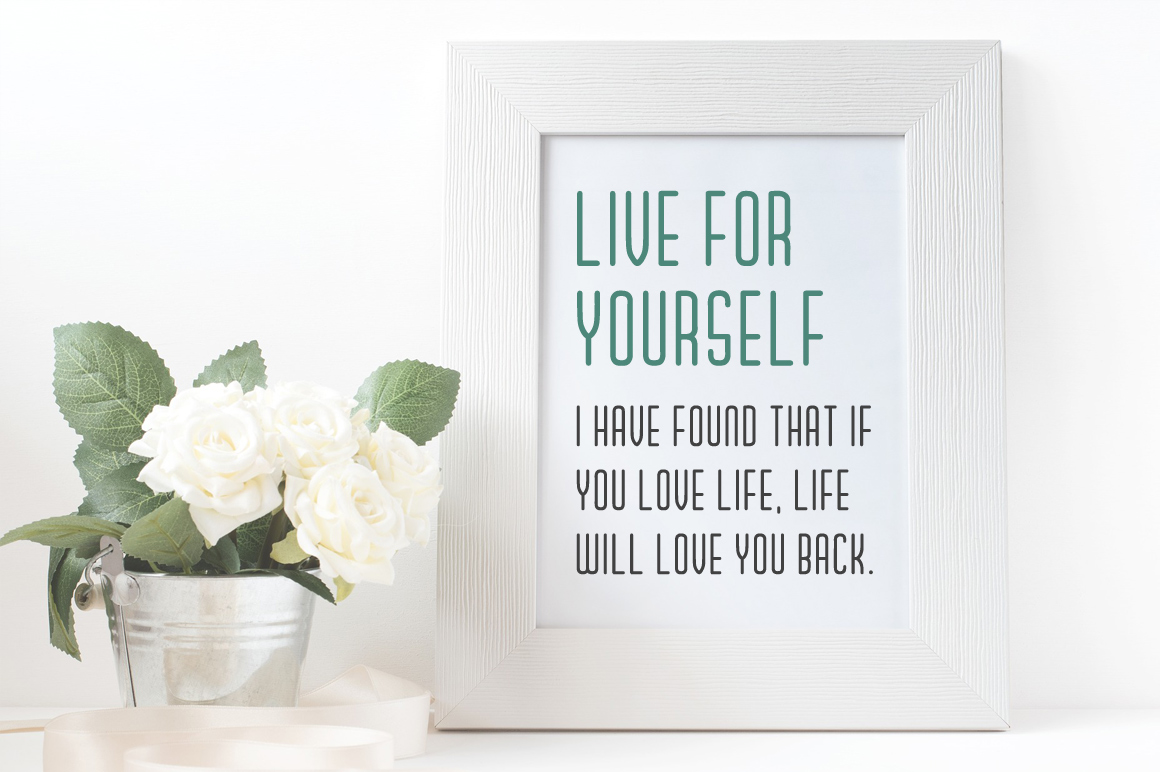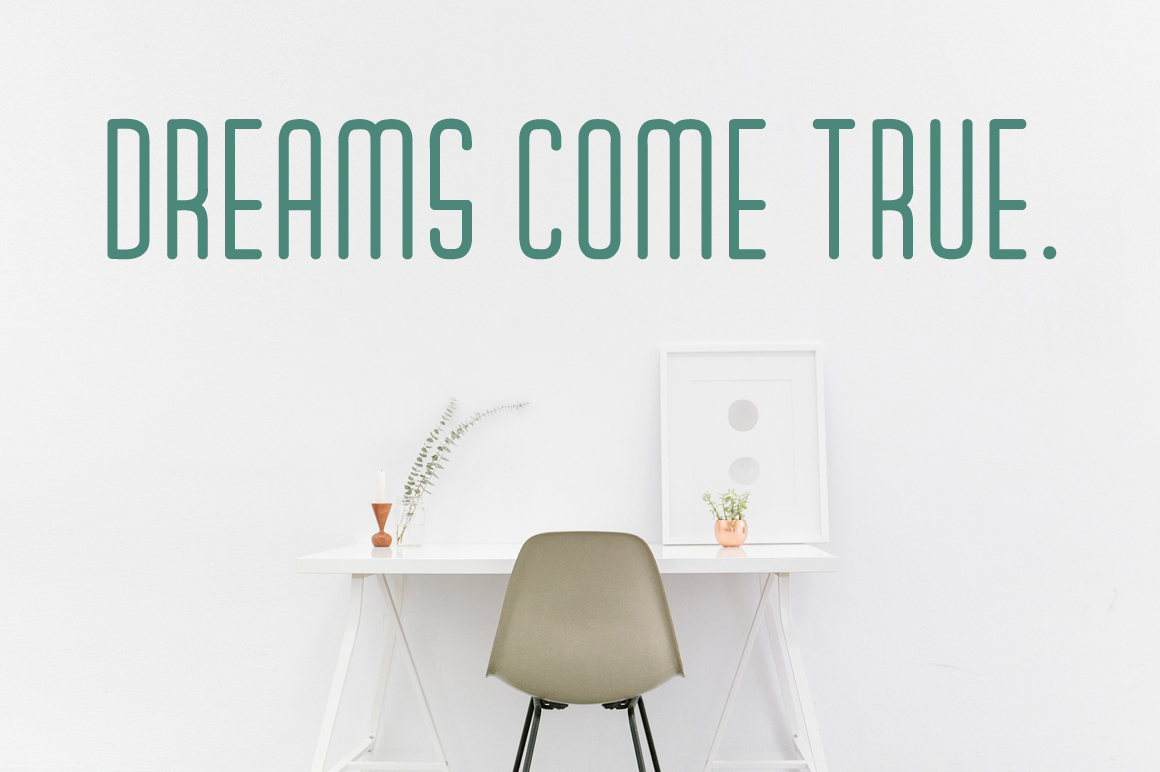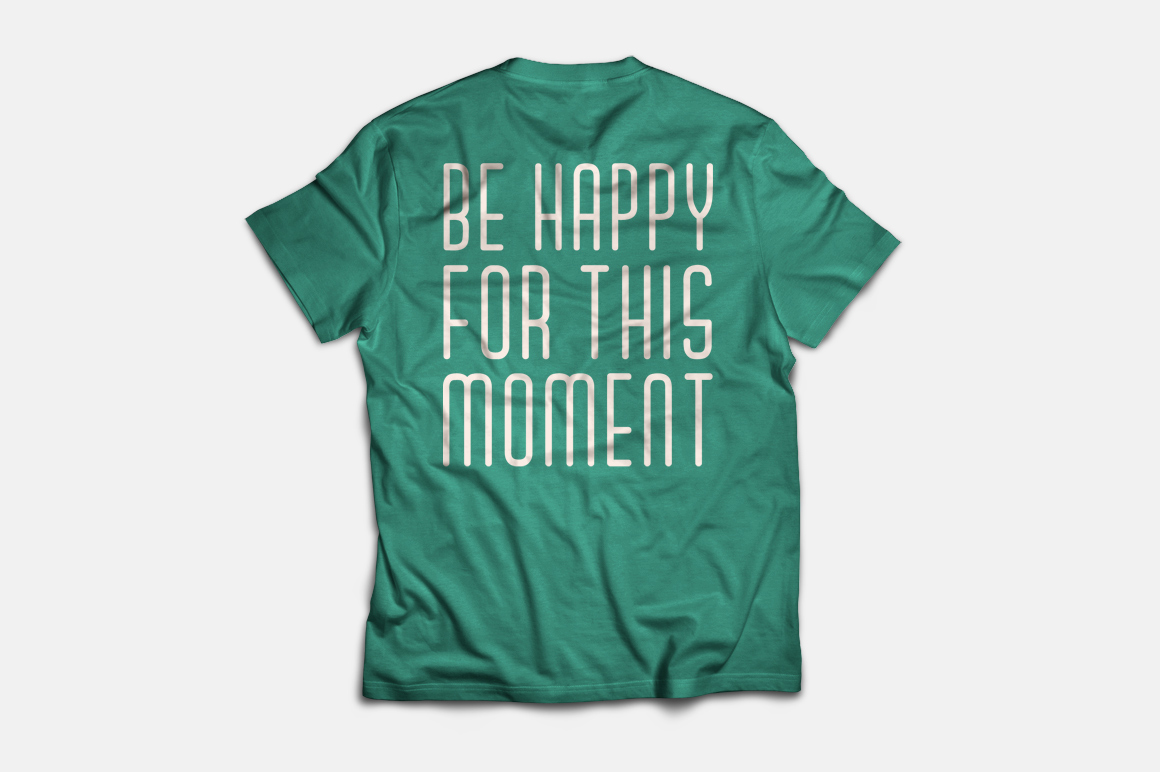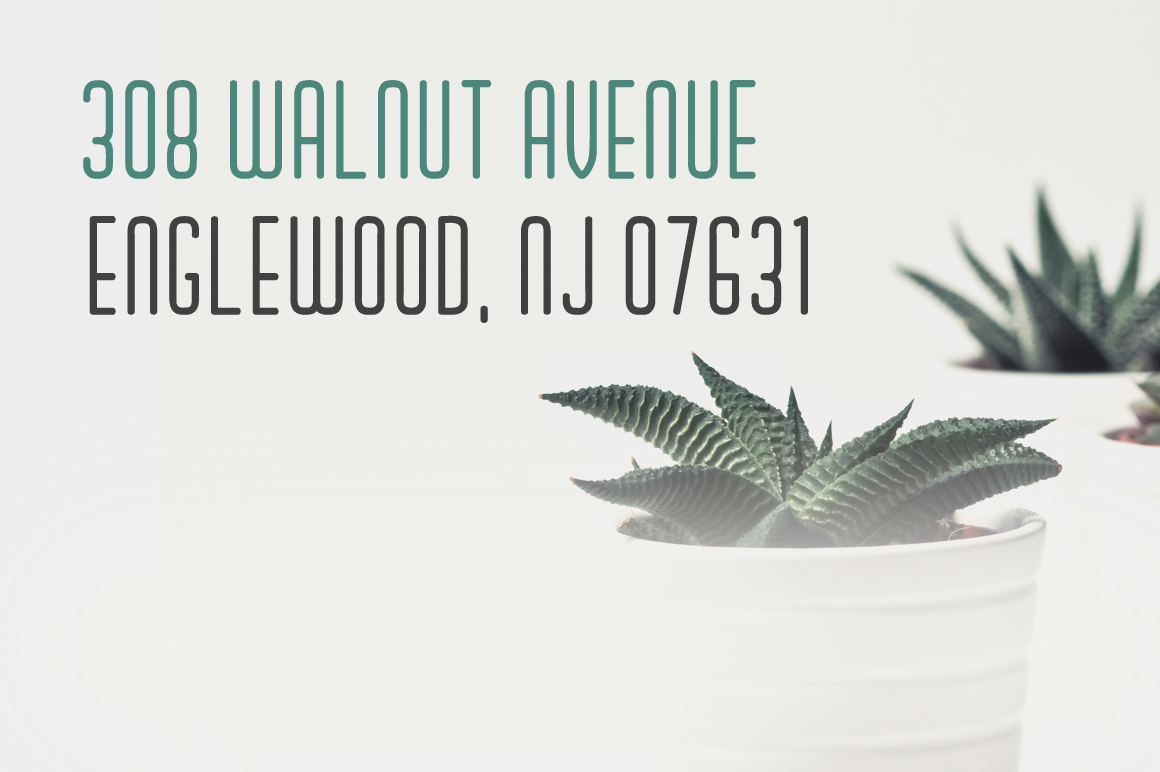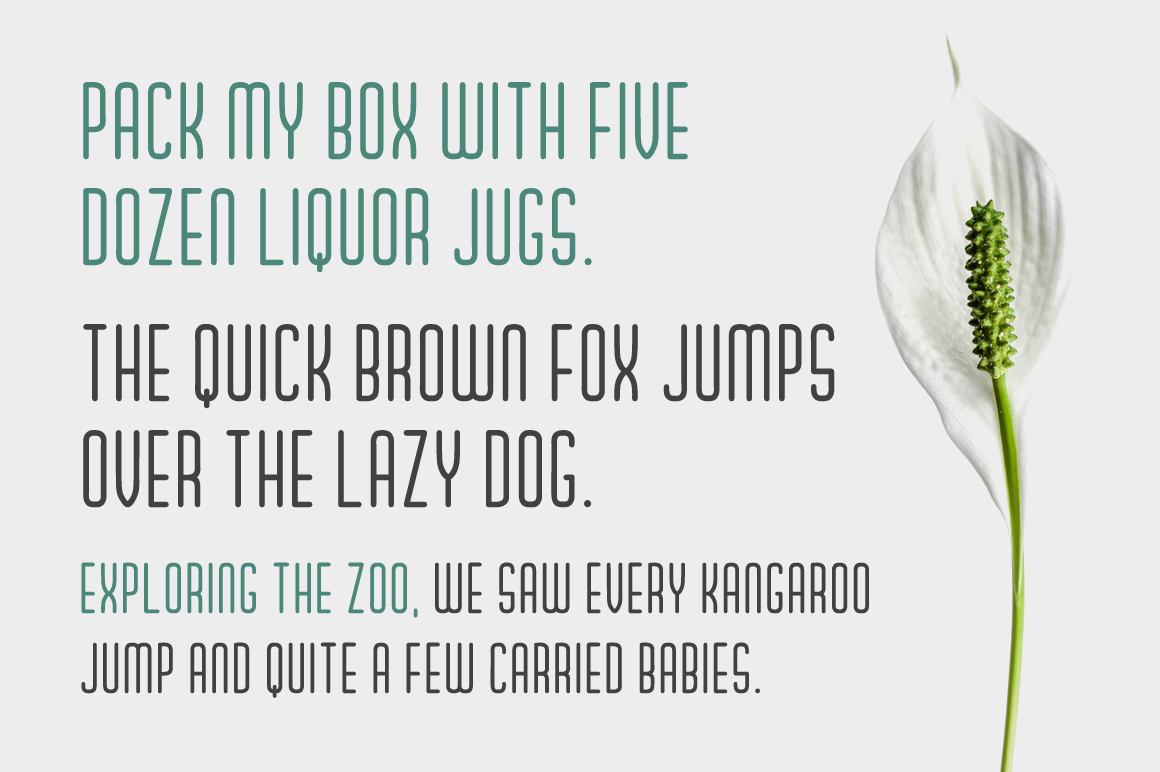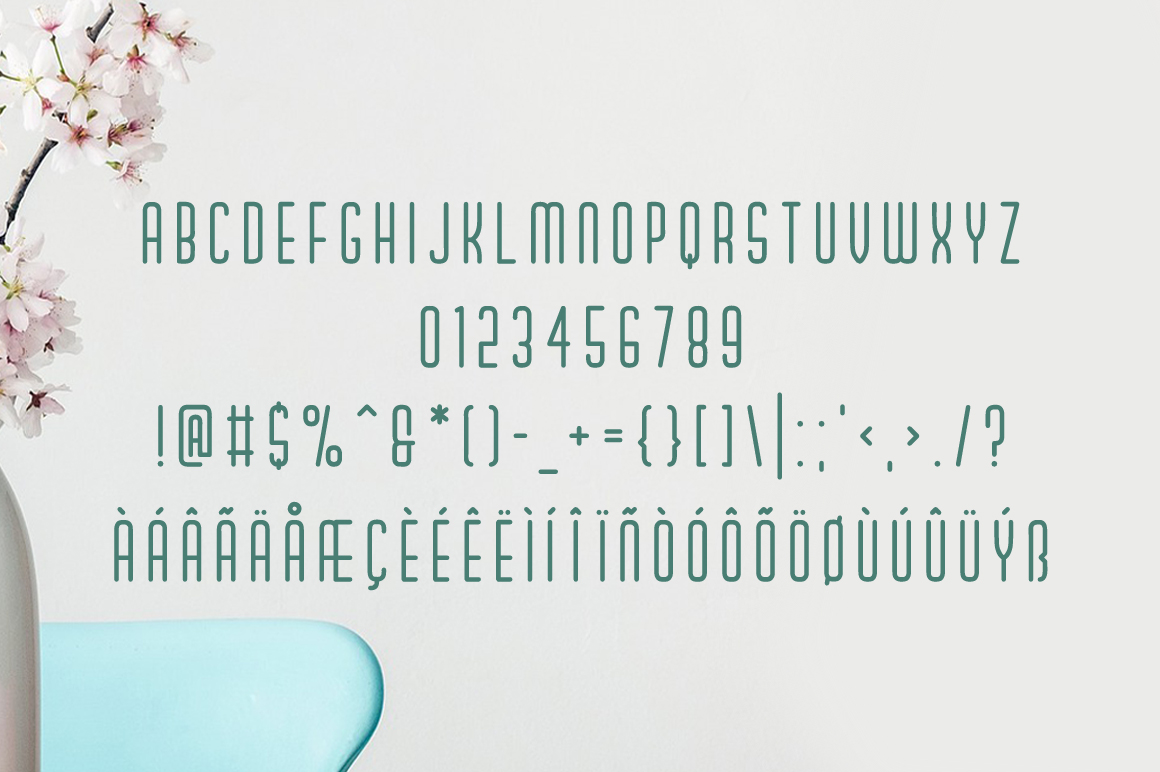
Introduction to Proxisol Font
Proxisol is a modern and clean geometric display font, perfectly suited to branding projects and headlines.
This is a striking yet easy to read font, and works in both serious and carefree designs .
Key Features of Proxisol Font